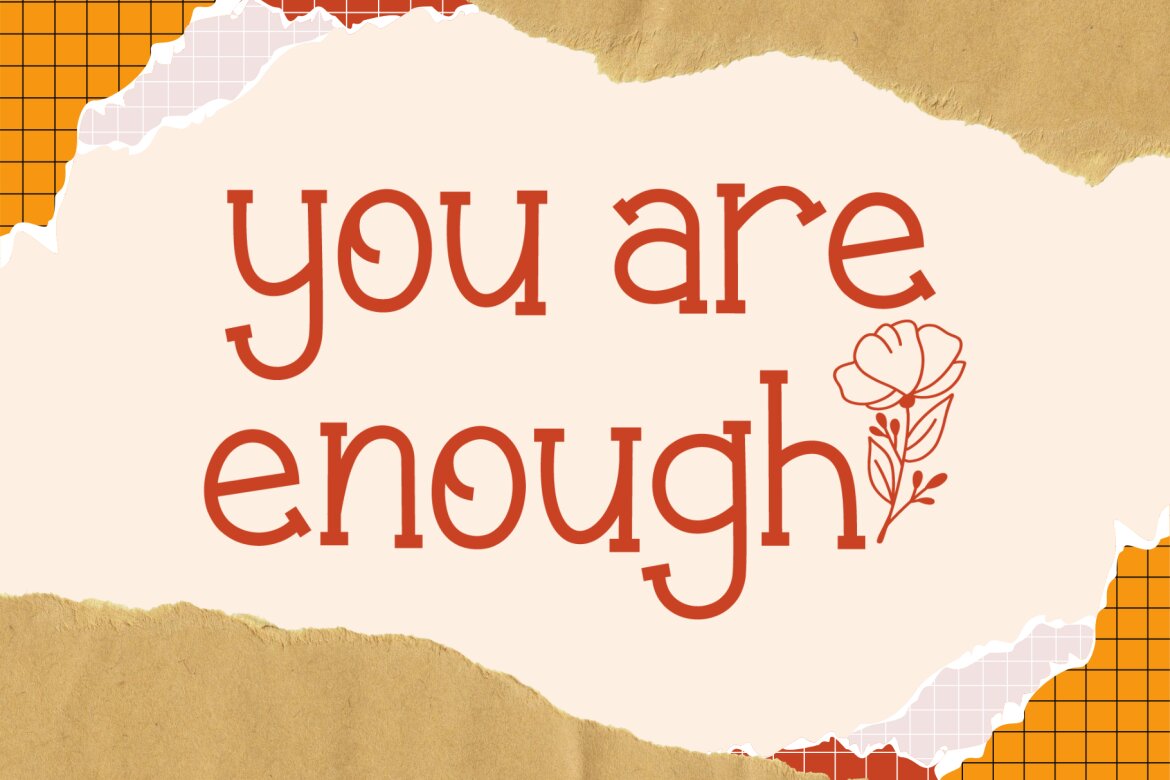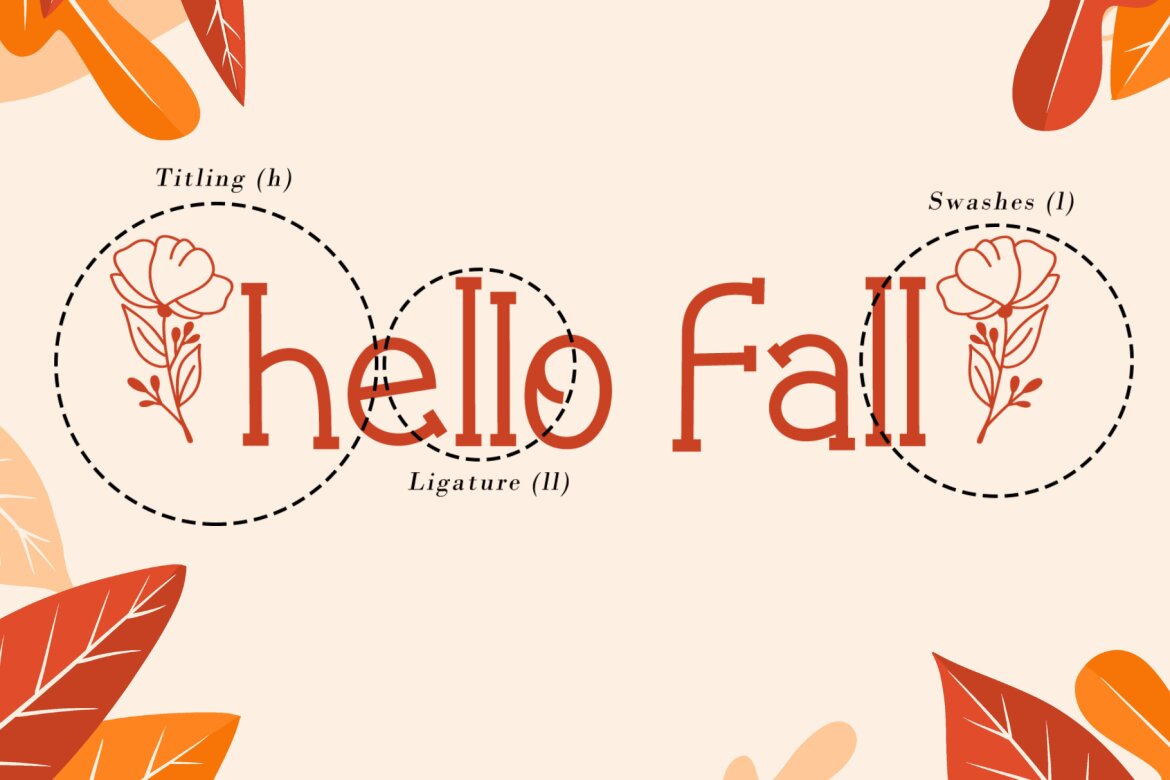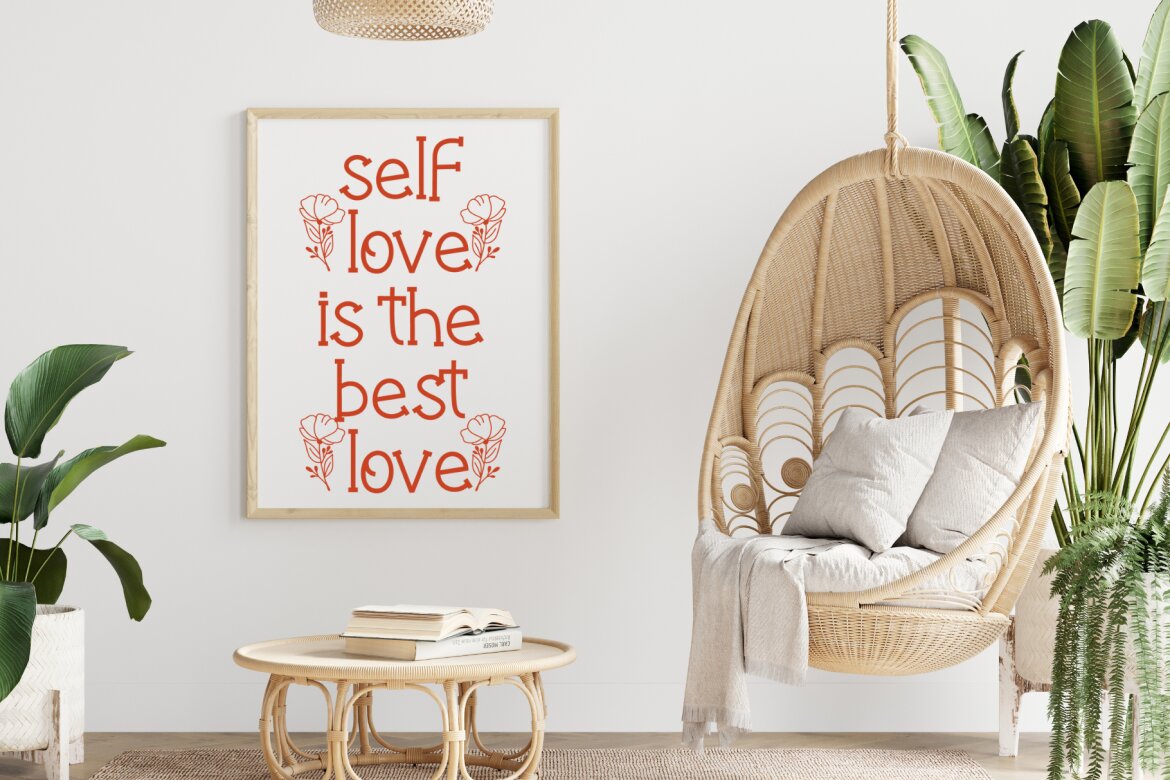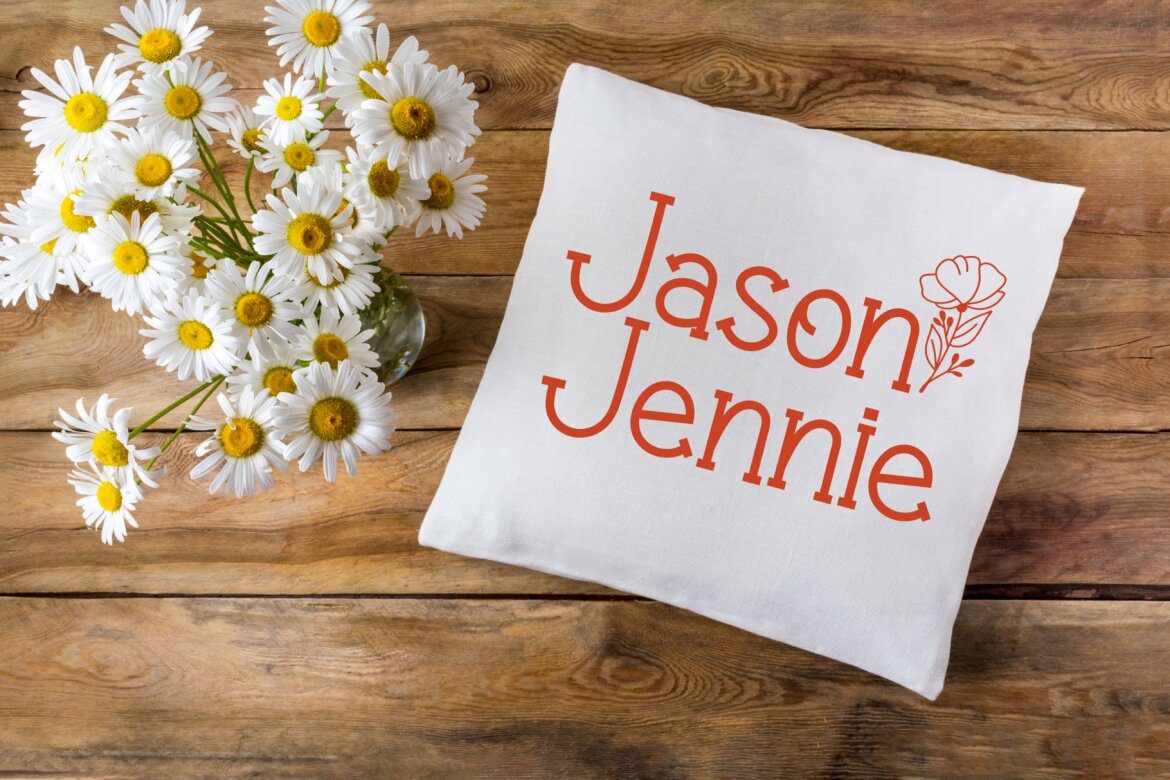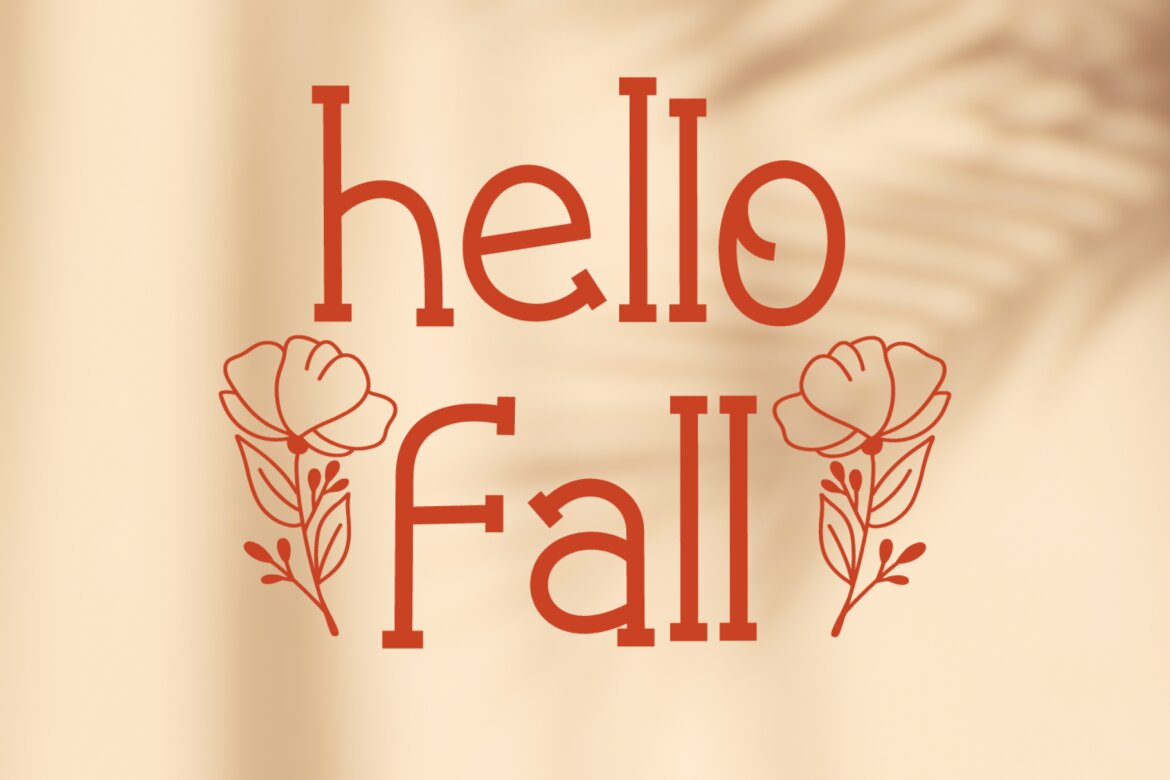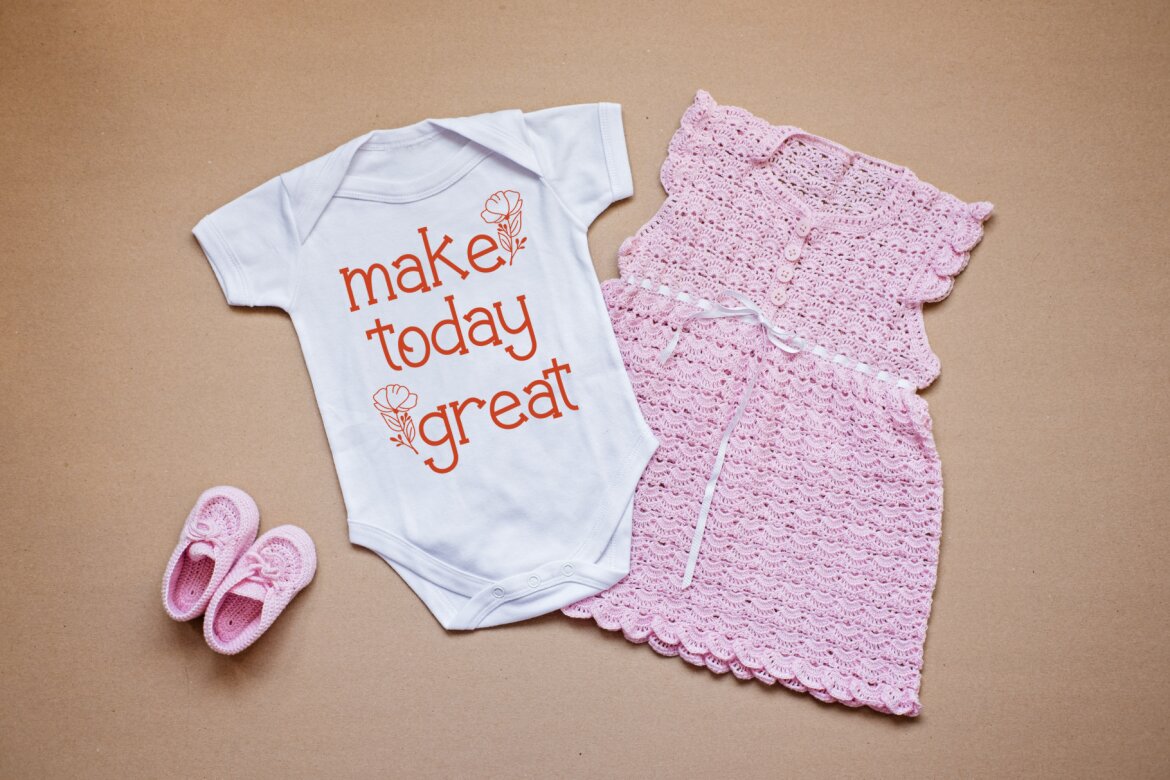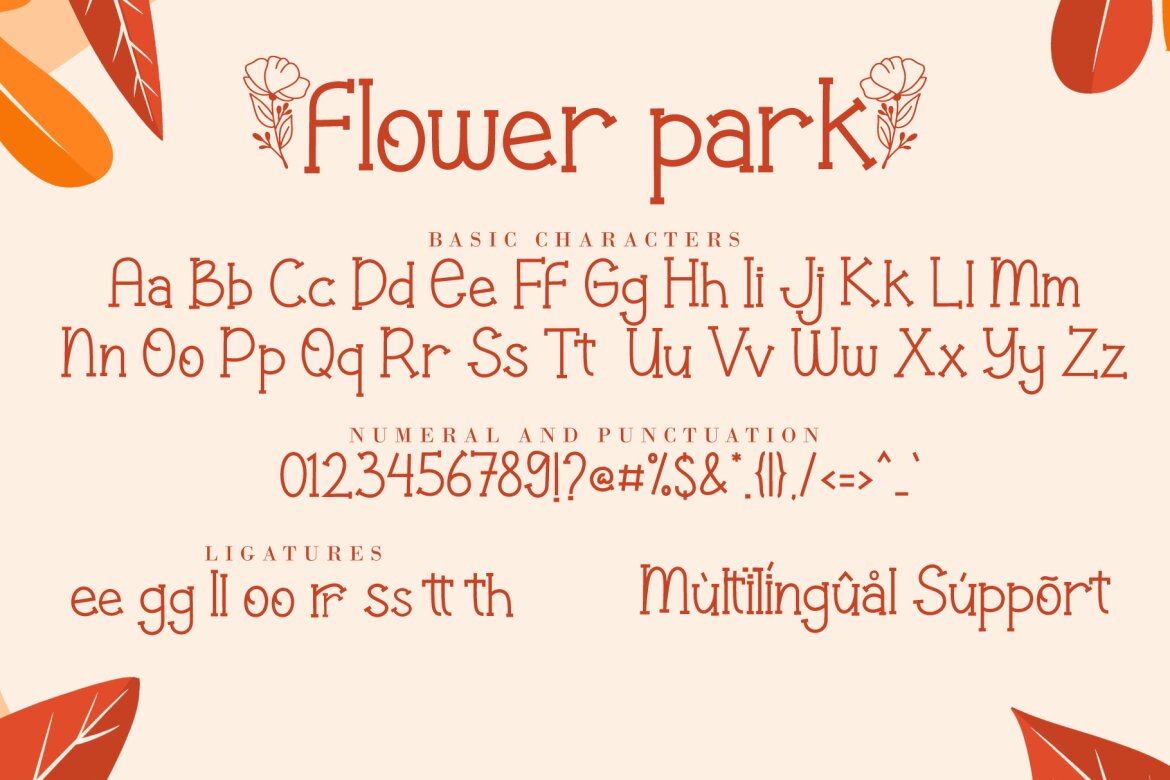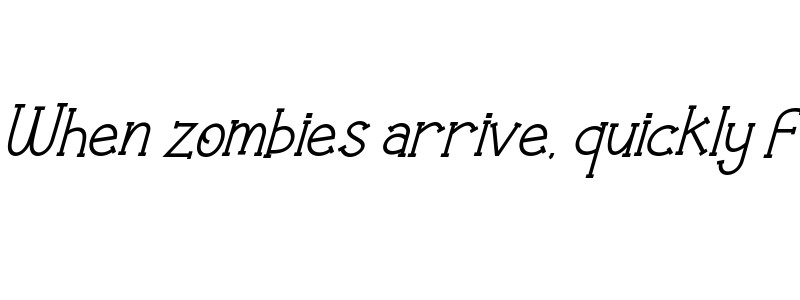
Flower Park FREE Font
Flower Park is a sweet and playful slab serif font. This font is perfect for the autumn theme, floral design, and nature theme, fitting a wide range of contexts. Add it to your creative ideas and notice how it makes them stand out!
• ligatures, swashes & titiling
• support multilingual; ä ö ü ä ö ü ß ¿ ¡